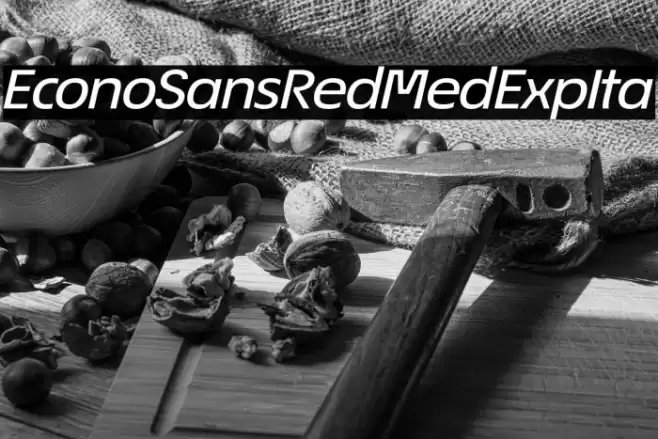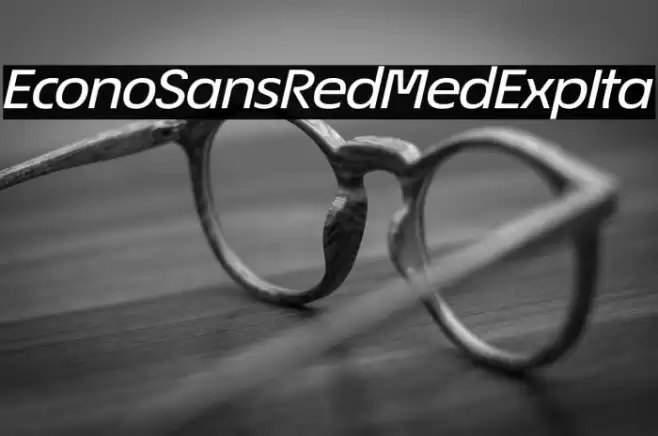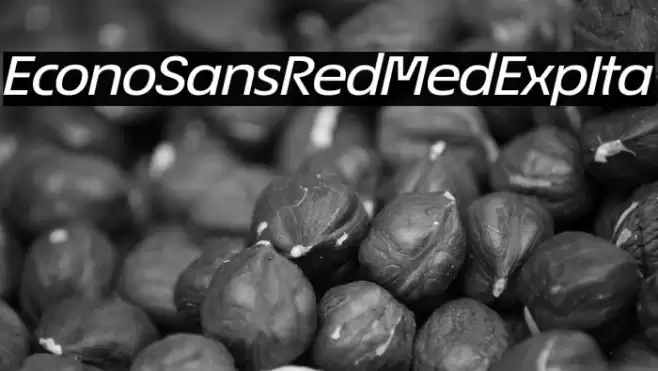
EconoSansRed-64MedExpIta Font
EconoSansRed-64MedExpIta Description
This font features a sleek, modern design with a slightly italicized style, giving it a dynamic and forward-moving appearance. The characters are well-proportioned with a consistent stroke width, contributing to its clean and professional look. The uppercase and lowercase letters maintain a harmonious balance, while the rounded edges add a touch of softness to the overall aesthetic. The font's expanded width allows for excellent readability, making it suitable for various applications. Its contemporary style is ideal for projects that require a fresh and innovative feel.
A modern, italicized sans-serif font with expanded width and clean lines from Regular fonts.
- Proposed Projects: Ideal for branding, advertising, and digital media projects that require a modern and professional appearance.
- Width: Expanded